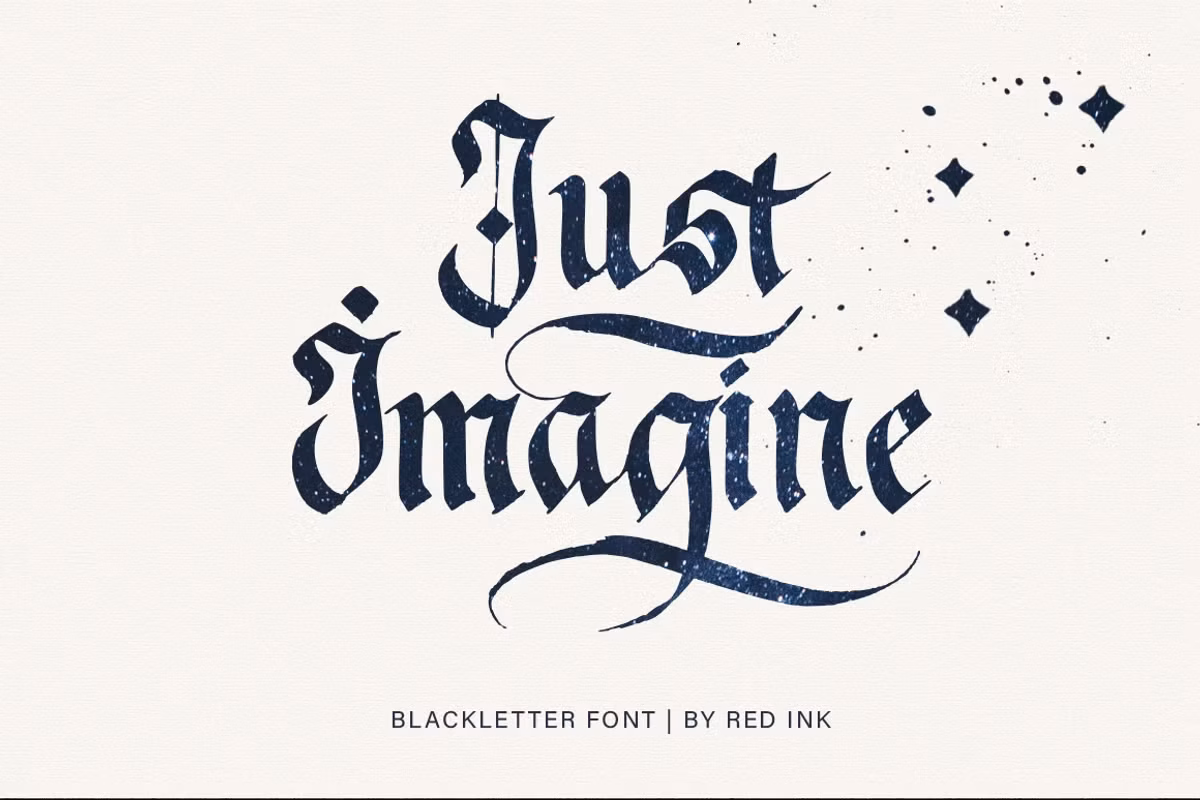
Just Imagine is a blackletter font that combines timeless elegance with authentic calligraphic elements. Its classic style is designed to add a touch of sophistication to various design projects.
Design Aesthetic: Just Imagine offers a classic blackletter style, making it suitable for projects that require a traditional and elegant touch.
Versatile Application: Ideal for creating original and outstanding designs, including logos, branding materials, invitations, and more.
Incorporating Just Imagine into your design projects can add a classic and elegant touch, enhancing their visual appeal.